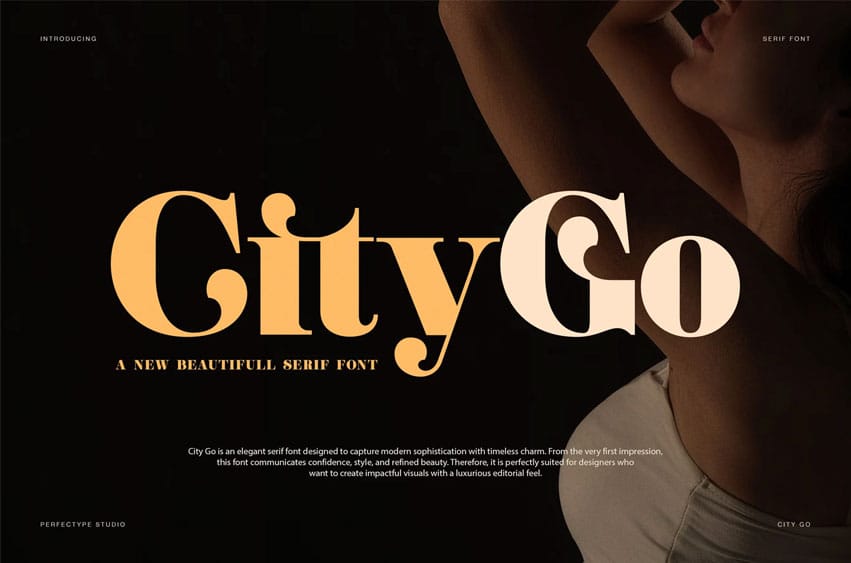
City Go Font is an elegant serif font designed to capture modern sophistication with timeless charm. From the very first impression, this font communicates confidence, style, and refined beauty. Therefore, it is perfectly suited for designers who want to create impactful visuals with a luxurious editorial feel.
Moreover, City Go blends classic serif foundations with smooth curves and expressive details. As a result, each letterform feels balanced, graceful, and visually strong. In addition, the font includes elegant alternates and ligatures that enhance typographic rhythm without reducing clarity. Because of this, City Go performs exceptionally well in headlines, brand identities, and statement typography.
This modern serif font was created with premium design applications in mind. Consequently, it fits naturally into fashion campaigns, interior design studios, high-end restaurants, lifestyle branding, and editorial layouts. Furthermore, its refined structure allows designers to express elegance while maintaining a contemporary edge.
City Go supports full uppercase and lowercase characters with consistent proportions. Meanwhile, its punctuation and numerals follow the same sophisticated style. Therefore, designers can build complete design systems using a single typeface. Additionally, the alternate characters allow creative flexibility, making logos and titles feel custom and distinctive.
Because readability matters, City Go avoids excessive ornamentation. Instead, it uses thoughtful curves and subtle contrast to create visual interest. As a result, the font remains clear across both digital and print formats. Likewise, it adapts beautifully to posters, websites, packaging, and social media content.
Key Features & Benefits
- Elegant modern serif design with luxury appeal
- Stylish ligatures and alternates for creative layouts
- Perfect for fashion, editorial, and interior branding
- Strong readability for print and digital use
- Ideal for logos, restaurants, studios, and campaigns
Ultimately, City Go is more than just a serif font. Instead, it is a refined design tool that transforms words into visual experiences. If you are looking for a modern serif font that feels elegant, expressive, and versatile, City Go is the perfect choice.